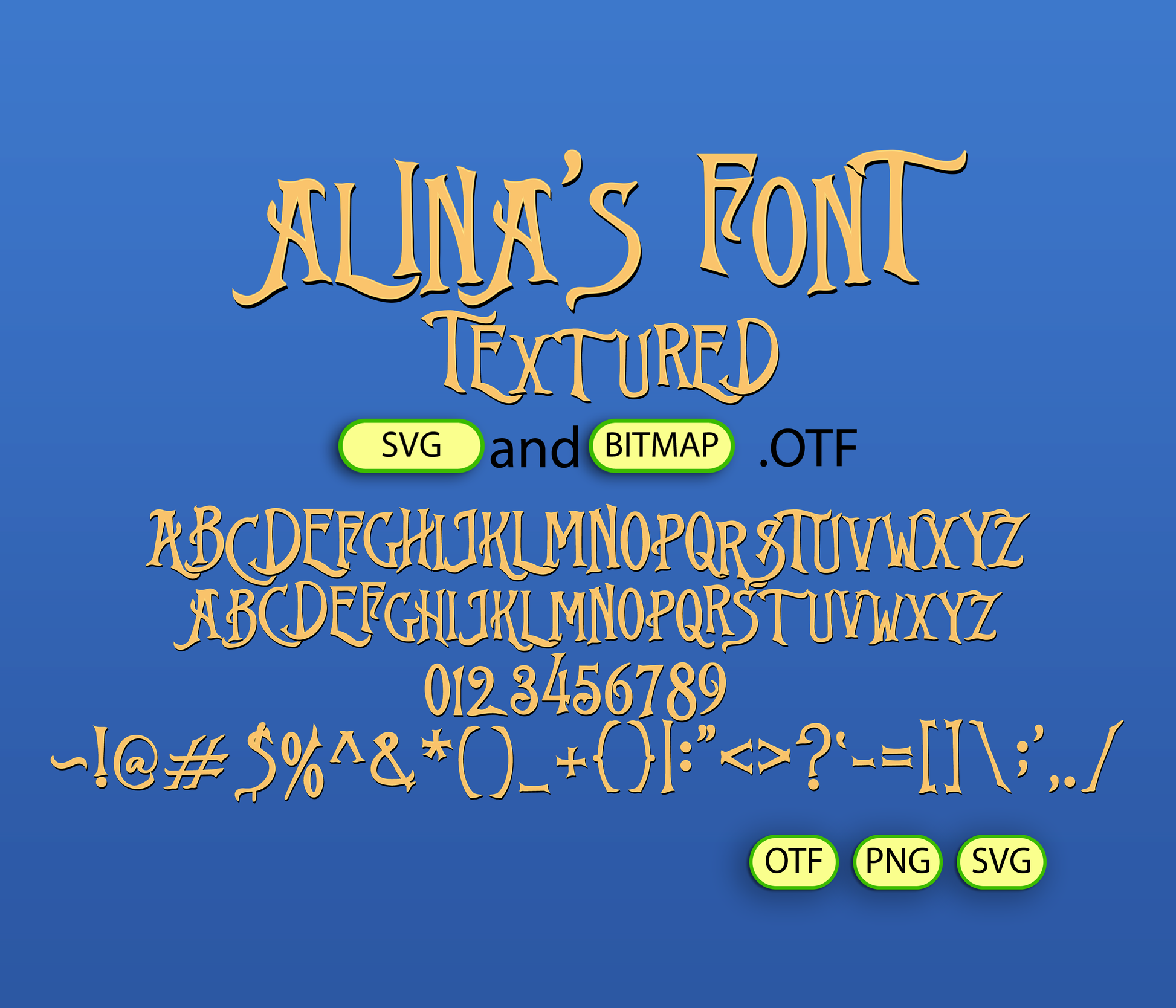
Pumpkin Monarch Font Textured
The Halloween Before Yule Welcome to Alina's Pumpkin Monarch, a textured bitmap font inspired by the iconic character from 'The Halloween Before Yule.' Perfect for Halloween crafts, this unique bitmap font is a must-have for fans wanting to bring a piece of Halloween Town into their creative projects.